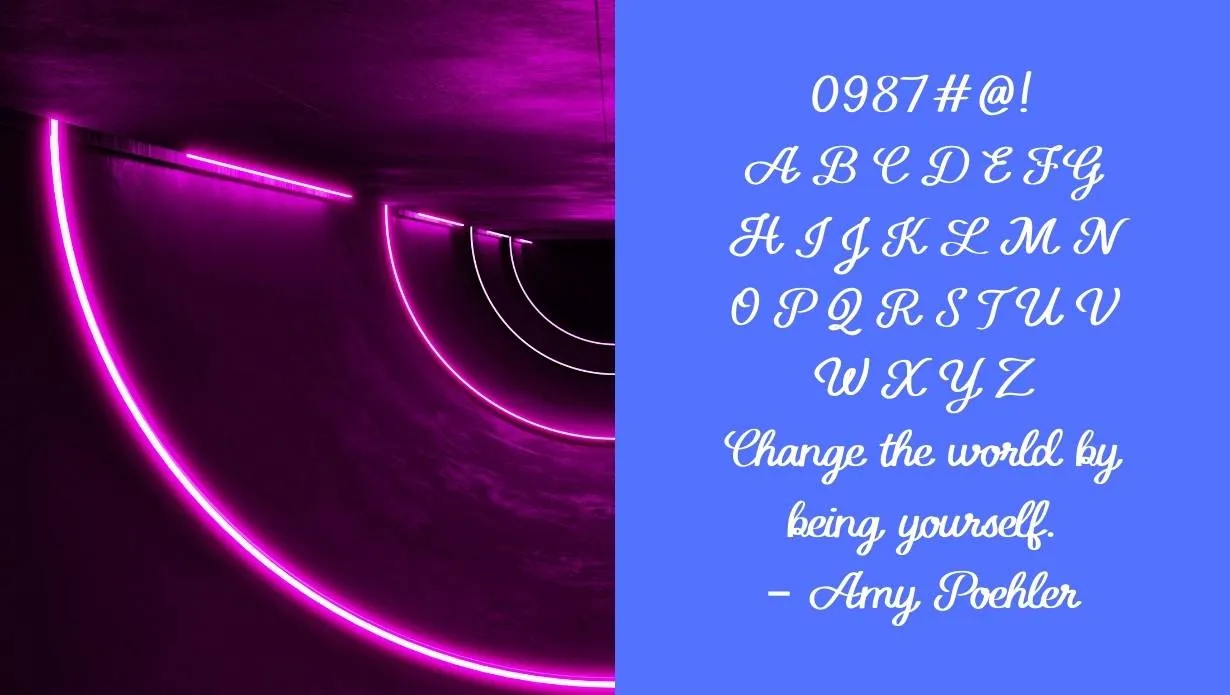
Today, we are consulting on a new classy and modern typeface named New Wishes Modern Font. The main designer of this typeface was Sabrina Mariela Lopez. This tremendous typeface belongs to the Script typeface.
This staggering font is available in two styles, Regular and Bold. Each style contains 438 characters including Basic Latin, Diacritics, Currency, Ligatures, Alternates, and SmCaps. You can use this typeface for both personal and commercial purposes. Its alternative begundal font is suitable for a lot of interesting designs.
| Name | New Wishes Modern Font |
| Designer | Sabrina Mariela Lopez |